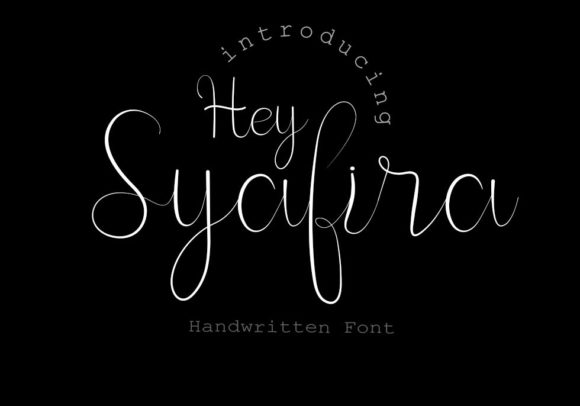
Unleash your creativity with Hey Syafira Font - the ultimate script font for crafting exquisite rounded monograms that radiate elegance and charm. This stunning font, meticulously designed by Almahyra Studio, captivates with its thin, delicate strokes, adding a touch of sophistication to any design project.
Immerse yourself in the versatility of Hey Syafira, a font that effortlessly adapts to a myriad of applications. Create logos that exude a sense of luxury and refinement, wedding invitations that evoke romance and grace, or headings that demand attention with their captivating presence. Unleash your inner artist and explore the boundless possibilities that await you with Hey Syafira.
With Hey Syafira, transform ordinary t-shirts into captivating canvases of expression, adding a personal touch to your wardrobe. Design letterheads that exude professionalism and leave a lasting impression, ensuring your correspondence stands out from the crowd. Craft signage that captivates passersby with its unique charm, drawing them into your establishment.
Elevate your marketing materials with Hey Syafira, creating labels that enhance your products' visual appeal, transforming them into irresistible purchases. Capture the attention of readers with posters that command attention, leaving an unforgettable impression that lingers in their minds. Design badges that exude individuality and flair, distinguishing your brand from the competition.
Hey Syafira's versatility extends to news articles, adding a touch of elegance to informative pieces. Create posters that announce upcoming events with a flair that sparks curiosity and anticipation. Unleash your creativity with badges that showcase your unique style and personality, making a bold statement wherever you go.